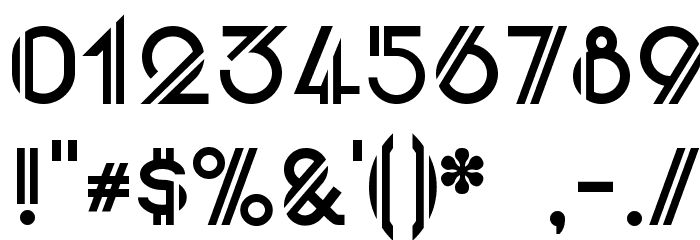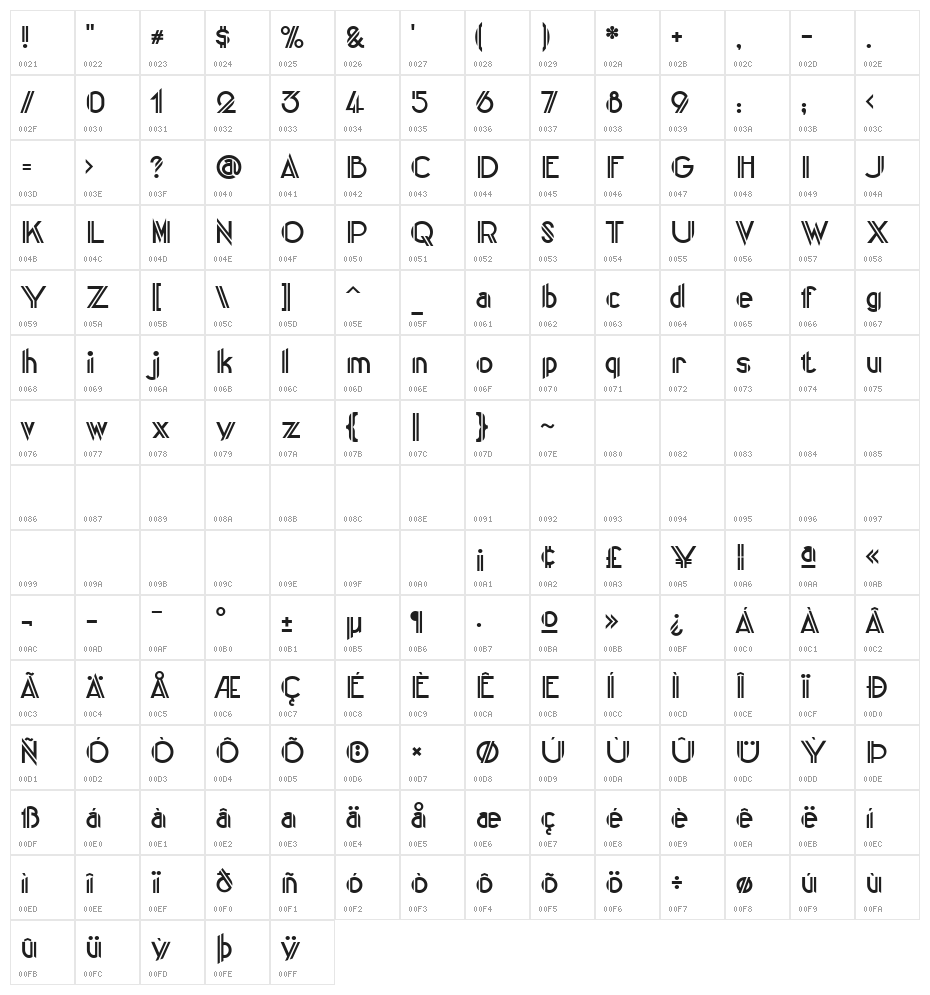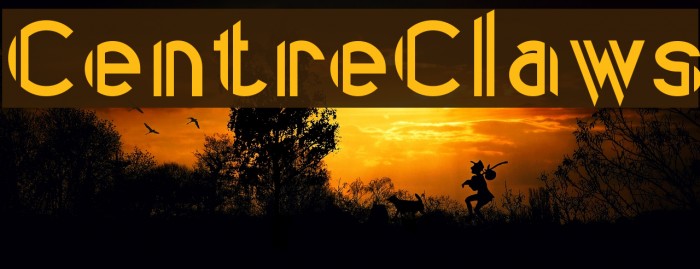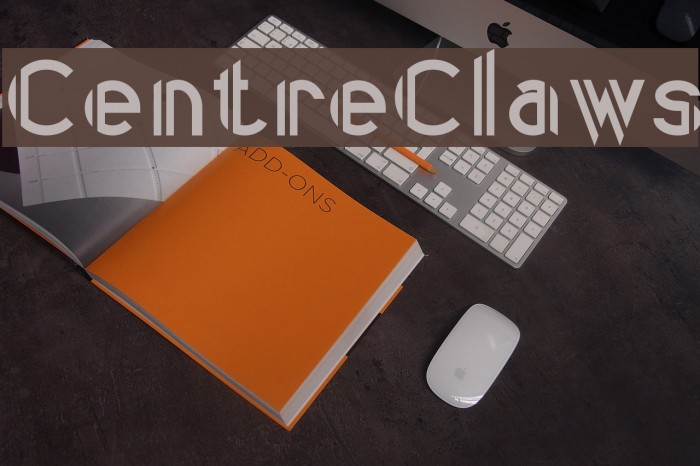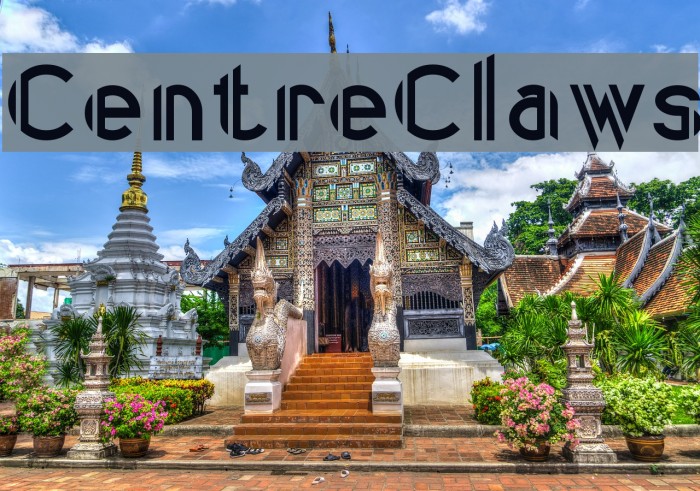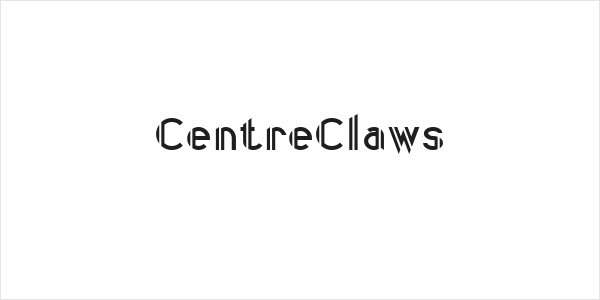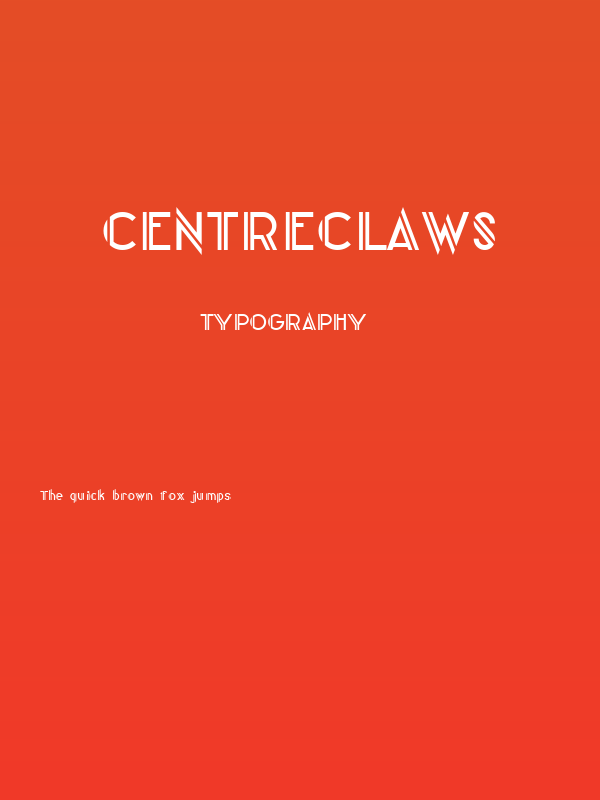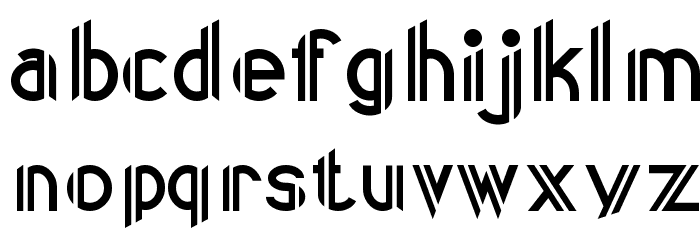
CentreClaws Font
CentreClaws Description
This font features a bold and geometric design with sharp angles and clean lines, creating a modern and striking appearance. The uppercase letters are characterized by their angular cuts and uniform stroke widths, giving them a futuristic and edgy look. The lowercase letters maintain the geometric theme with consistent shapes and balanced proportions. The numerals are distinct and easily readable, following the same angular style. Special characters are designed to complement the overall aesthetic, ensuring a cohesive look across all glyphs. This font is ideal for projects that require a contemporary and bold statement.